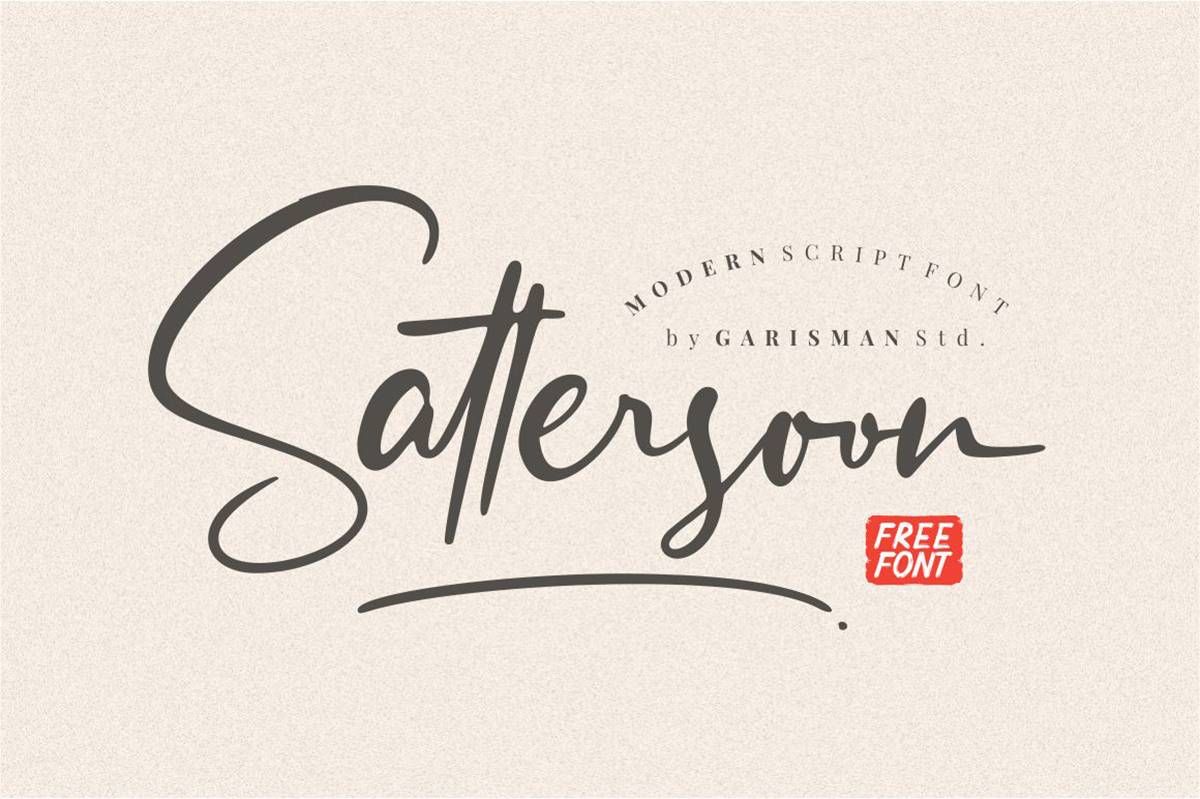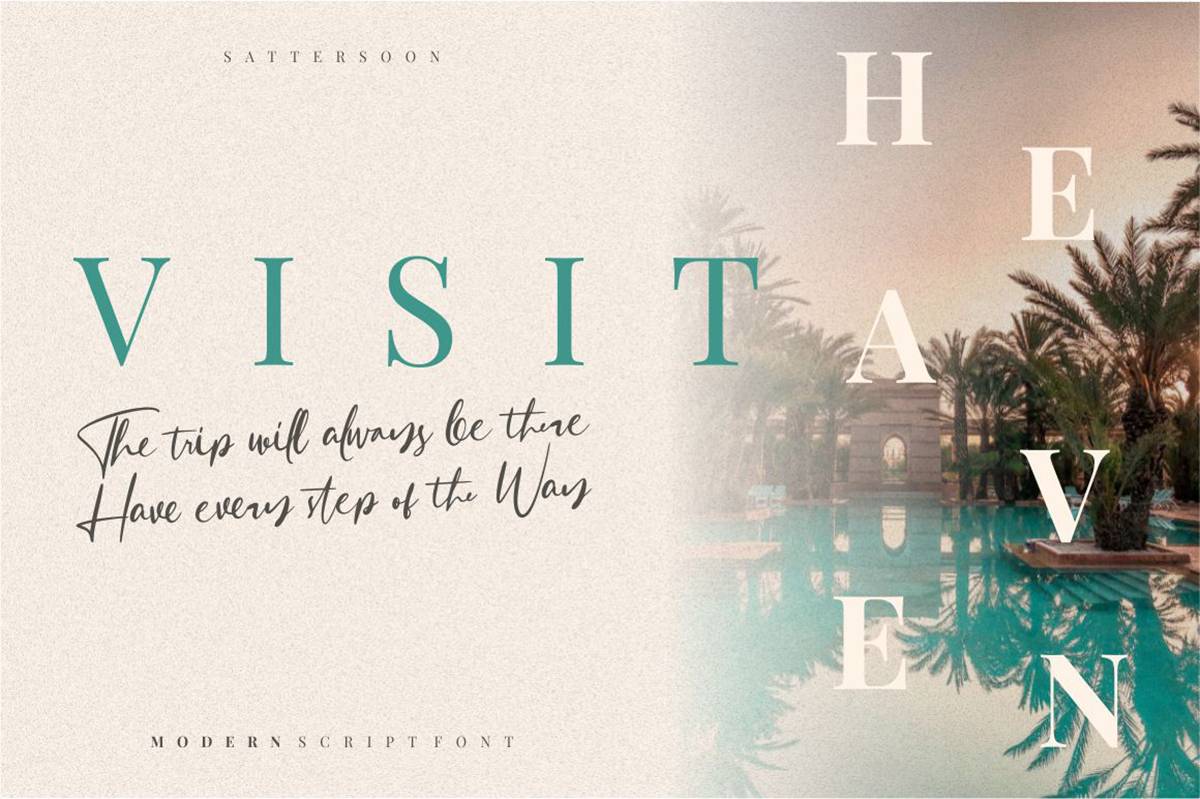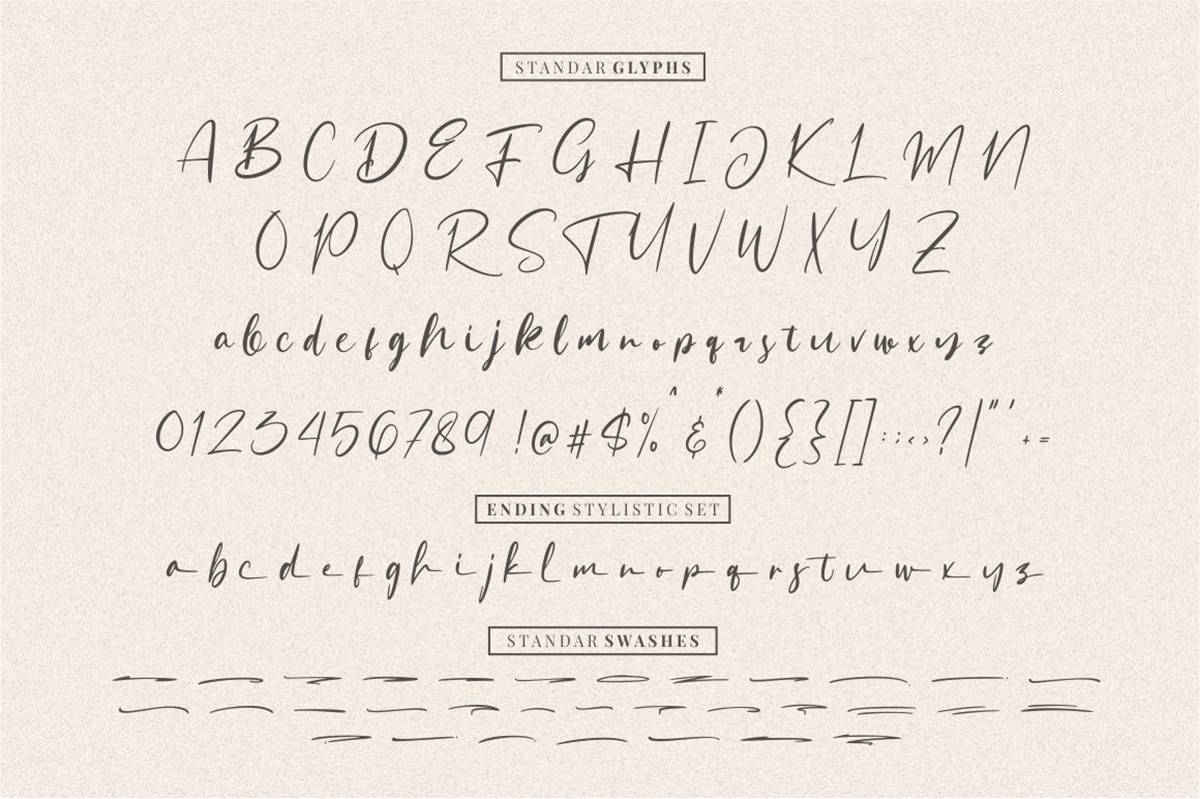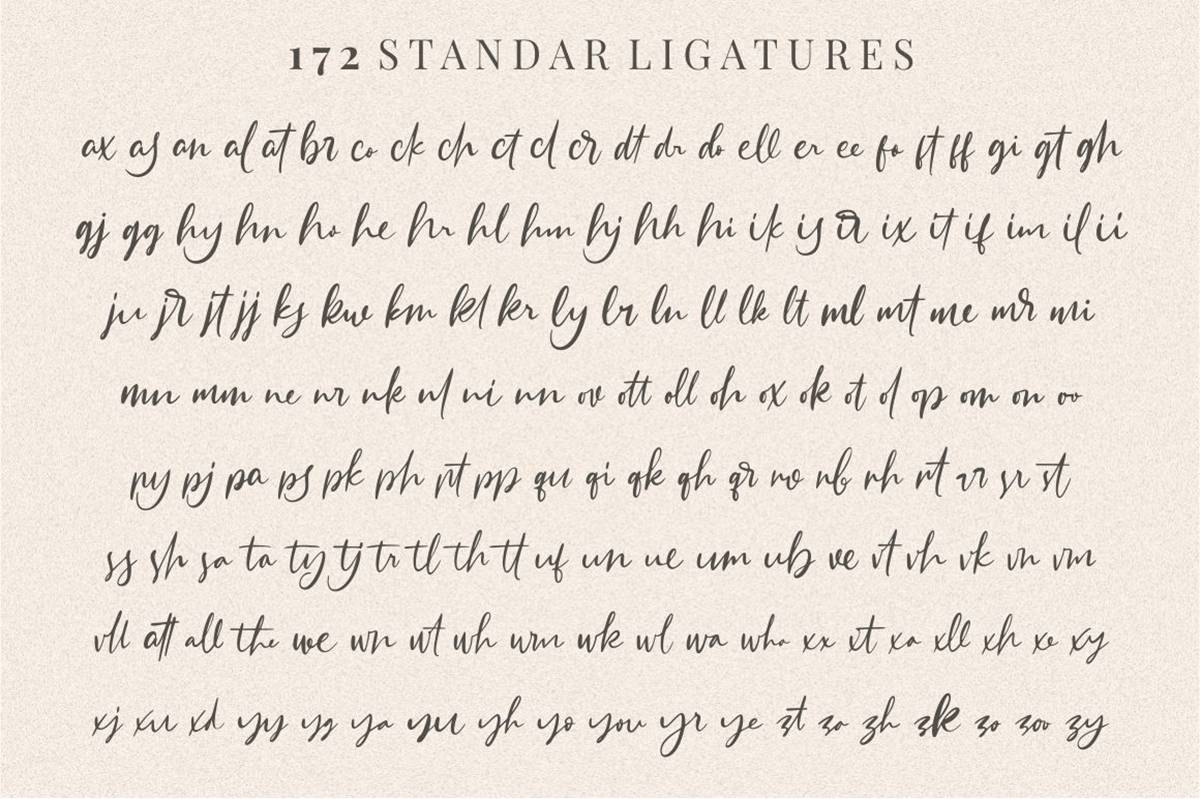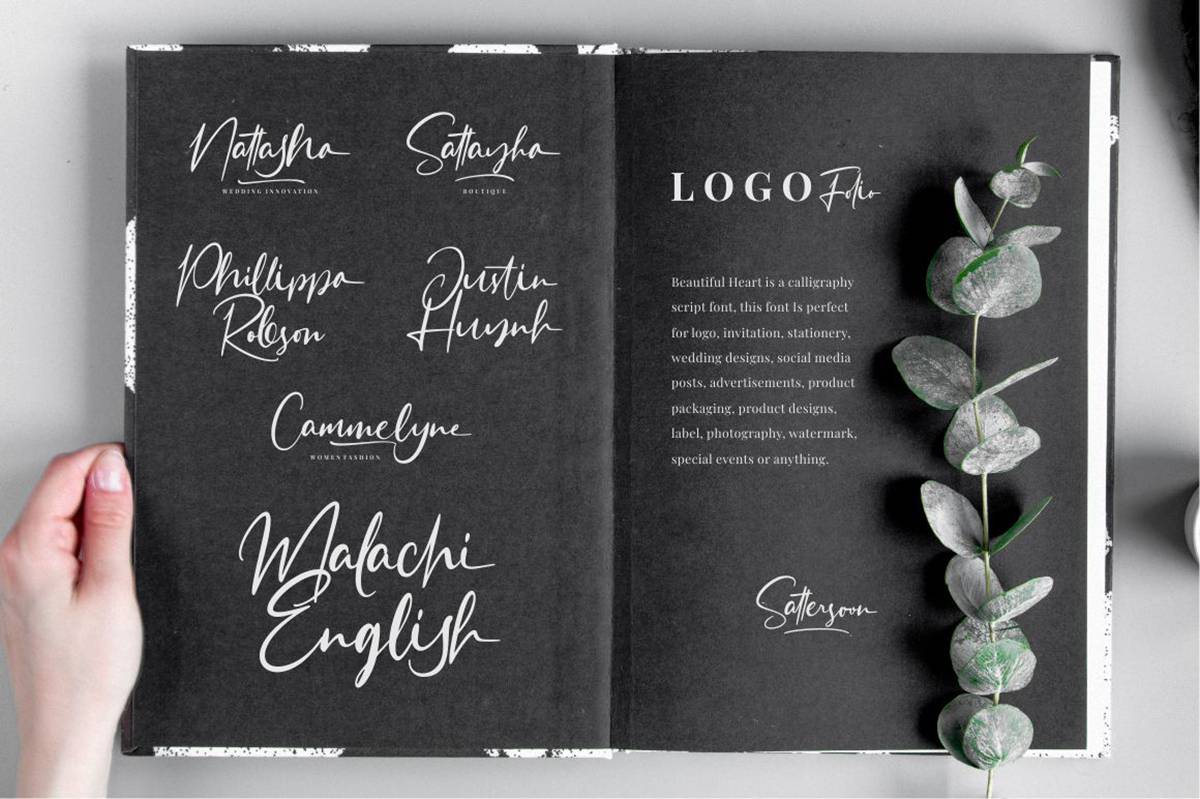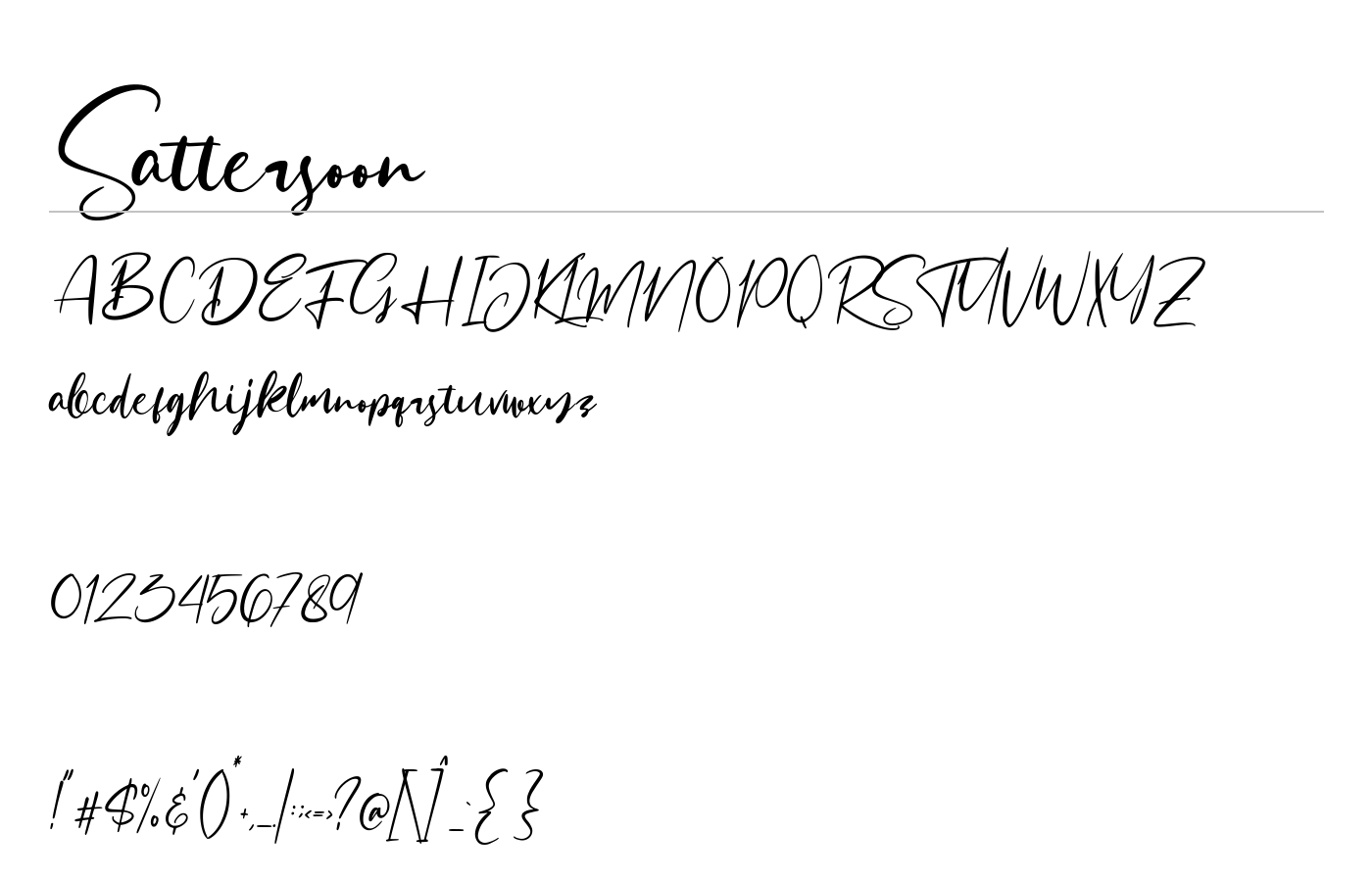
Sattersoon is a delicate script font that blends elegance with a casual charm, featuring smooth, flowing letterforms and a mix of thin and medium stroke weights. Its handwritten style with distinct uppercase and connected lowercase letters gives it a personal, artistic feel, making it ideal for invitations, branding, and creative projects that seek a stylish yet approachable look. This font works beautifully in designs where a touch of sophistication and warmth is desired.
Sattersoon Font
About Sattersoon Font
| Font family | Sattersoon Font |